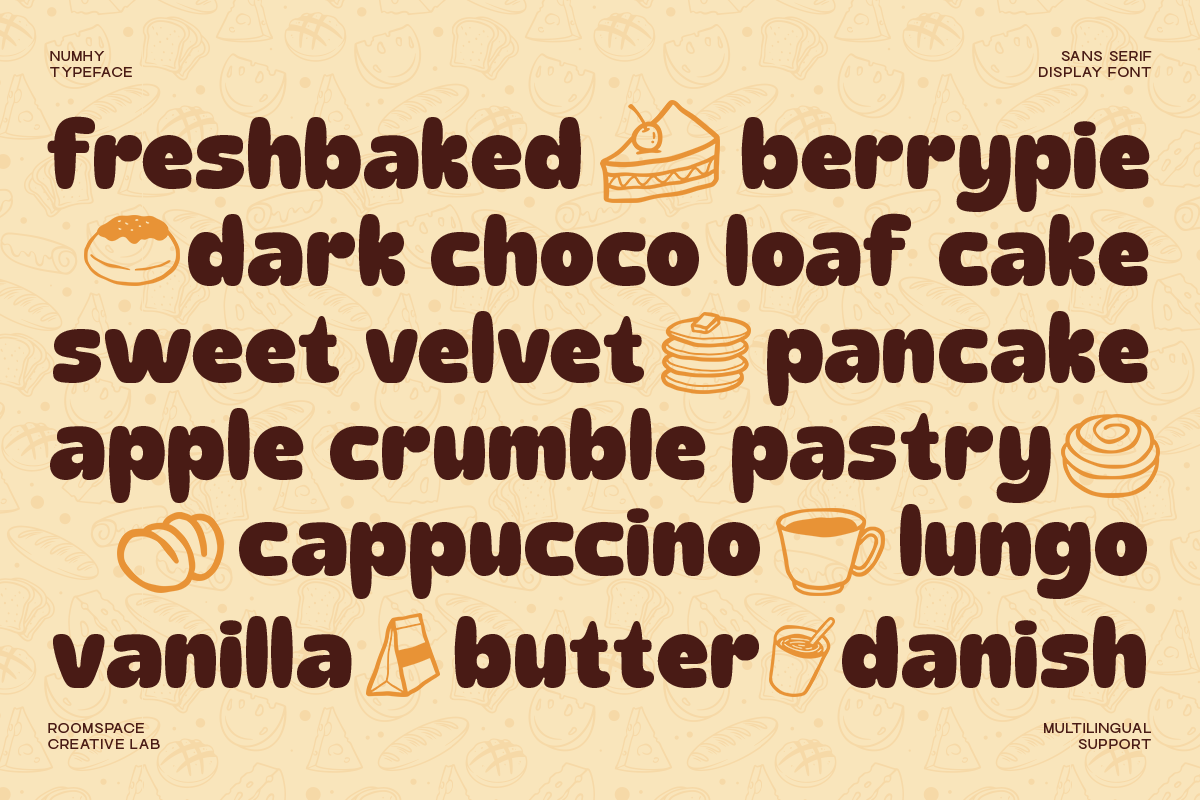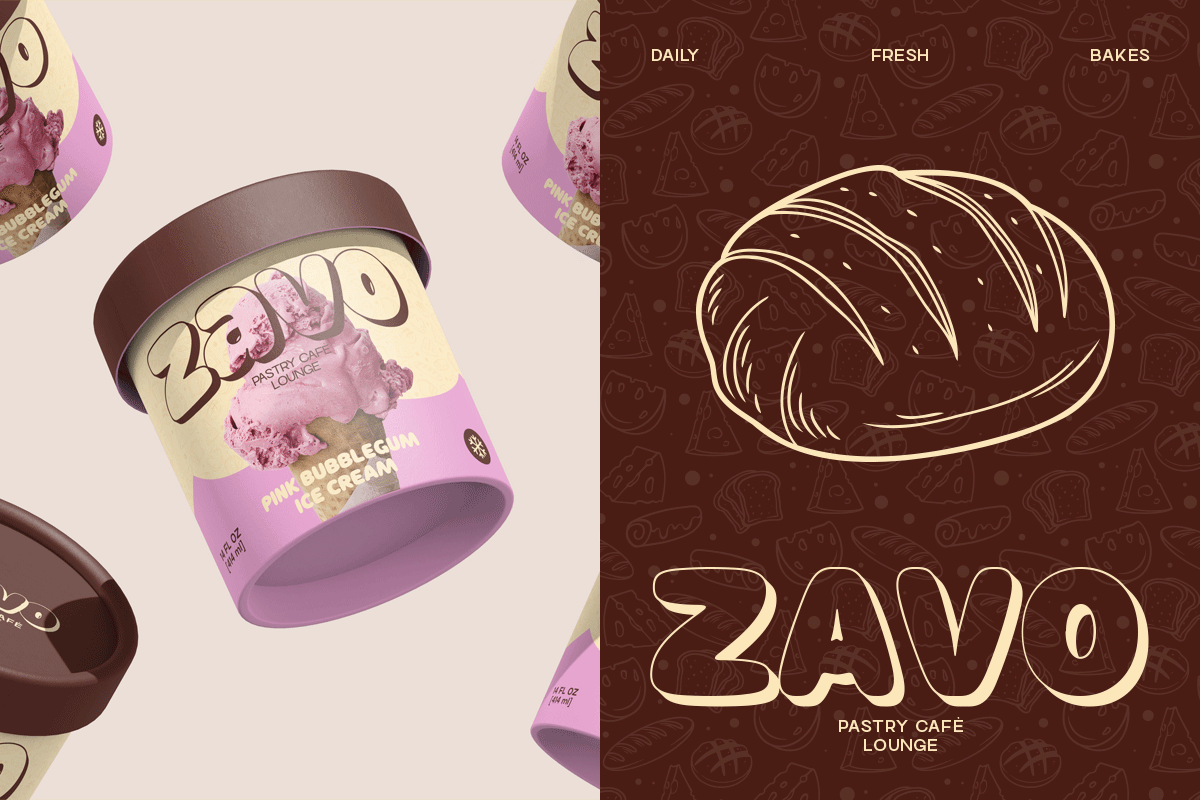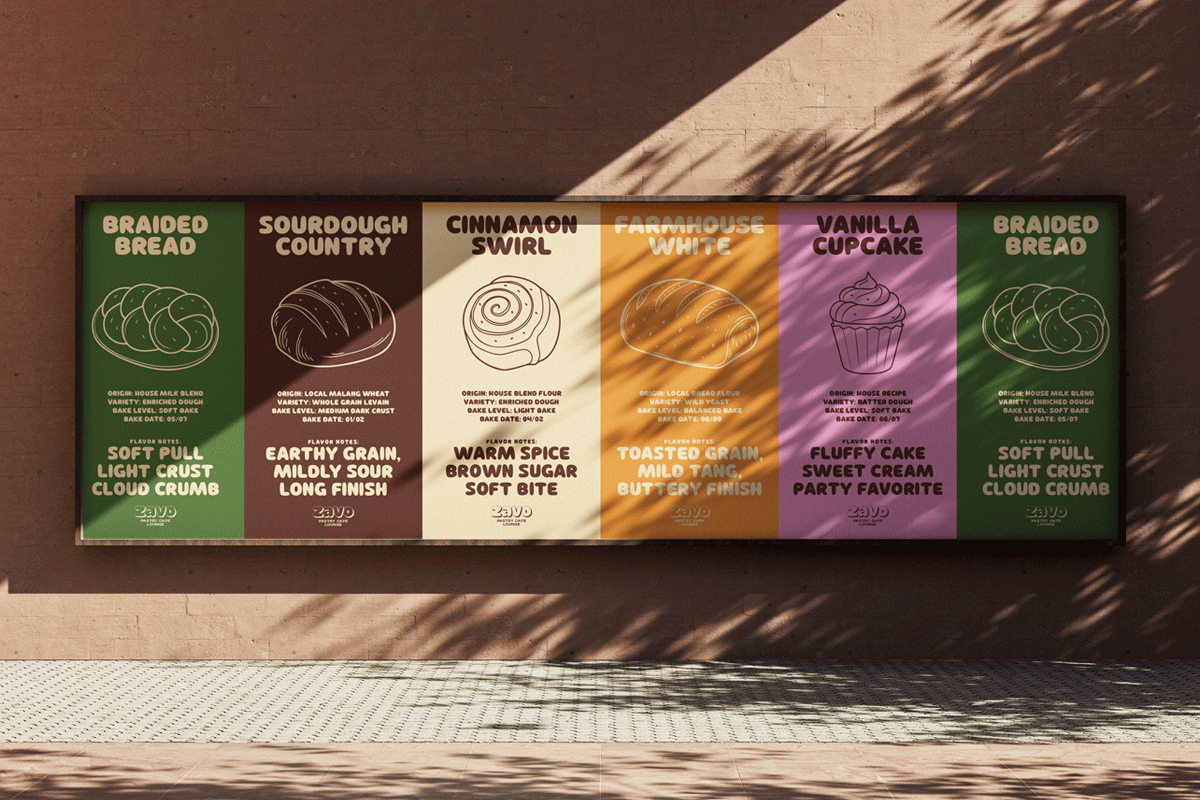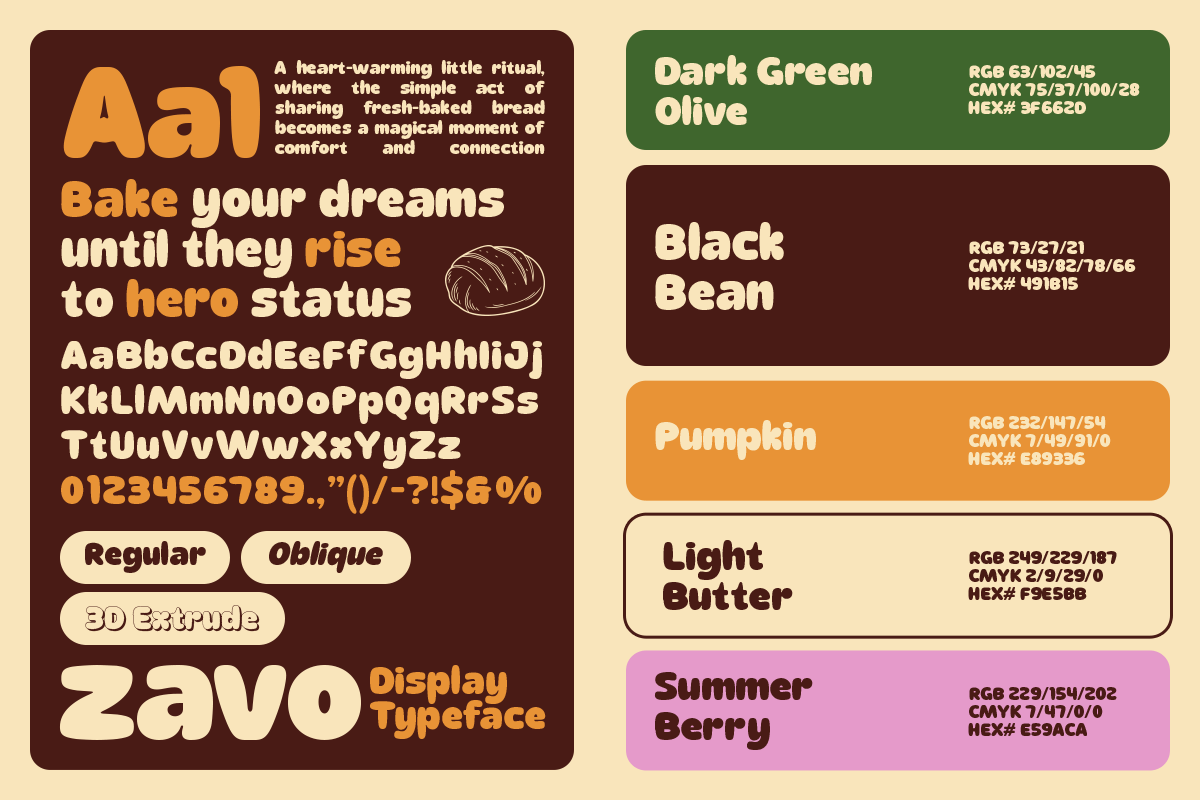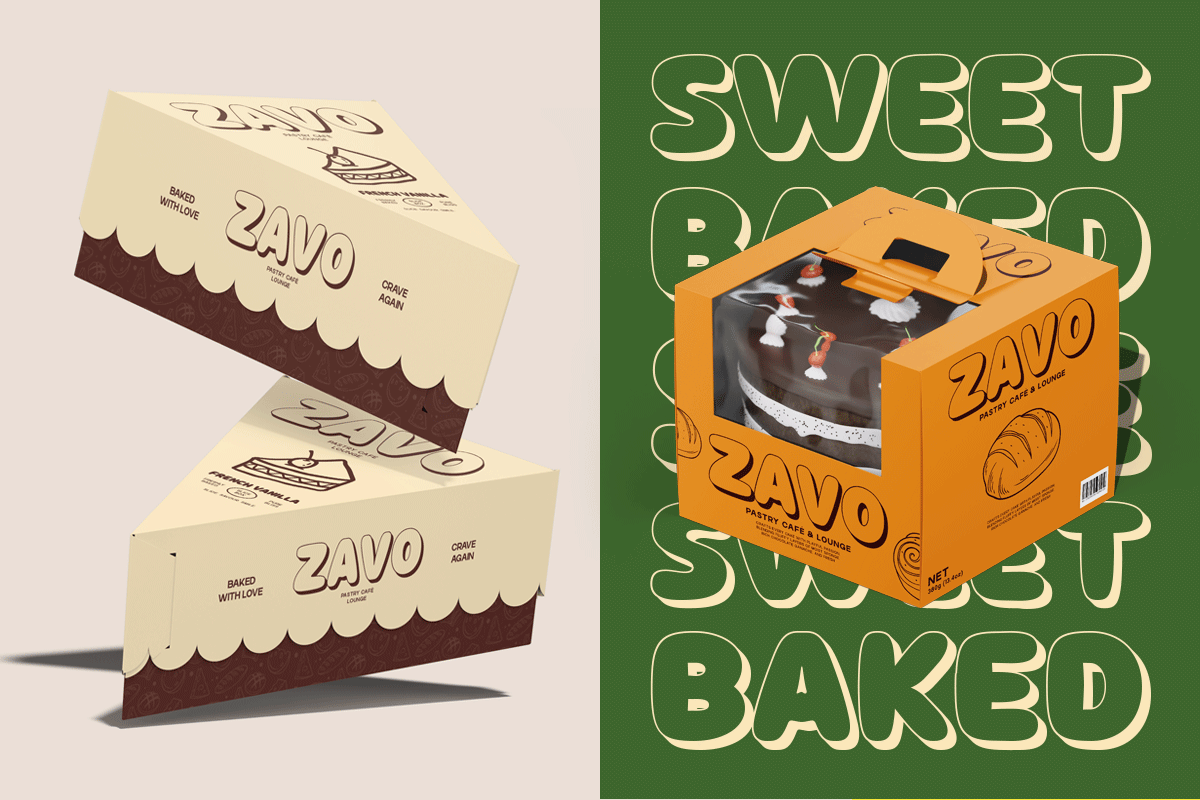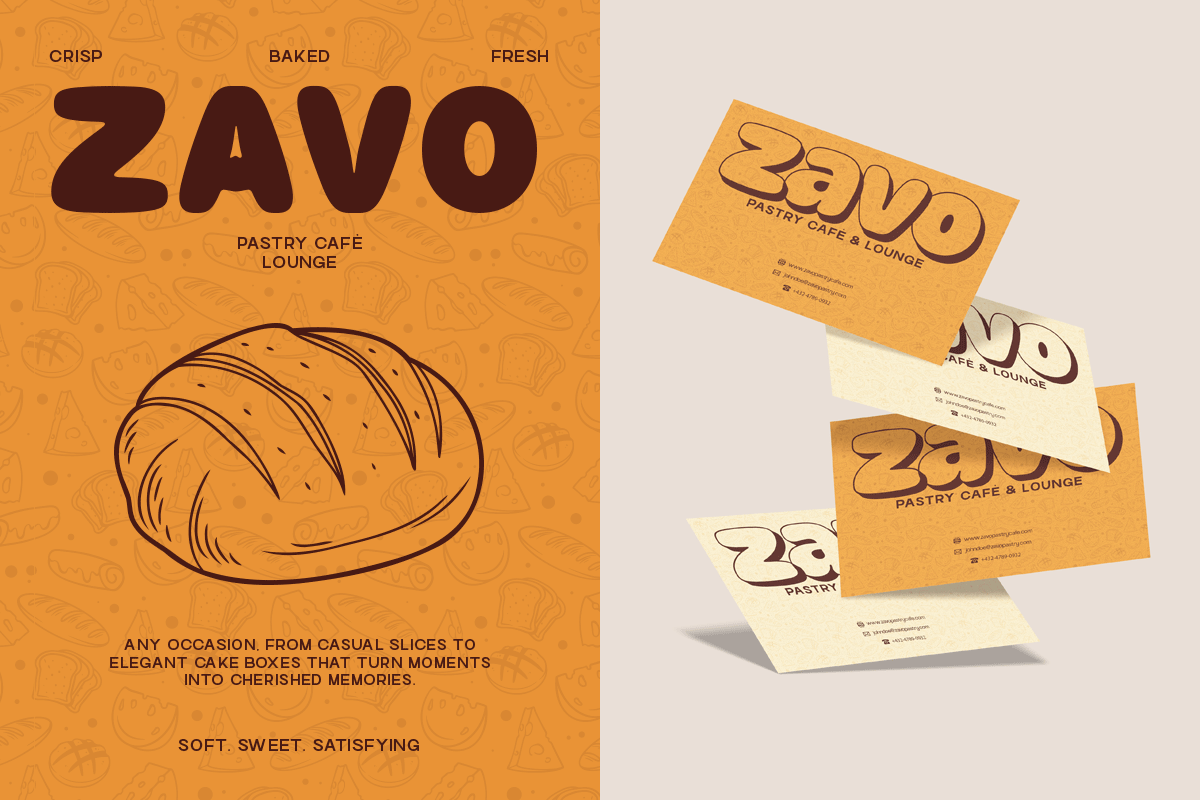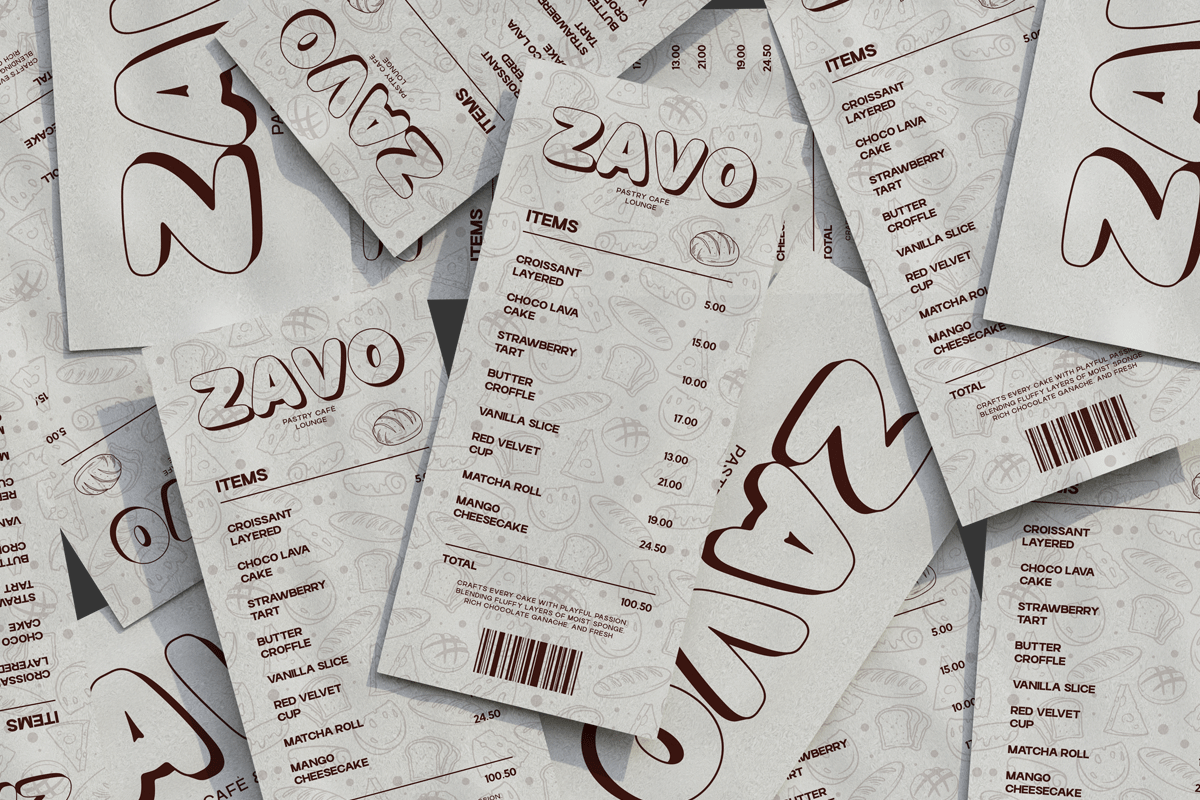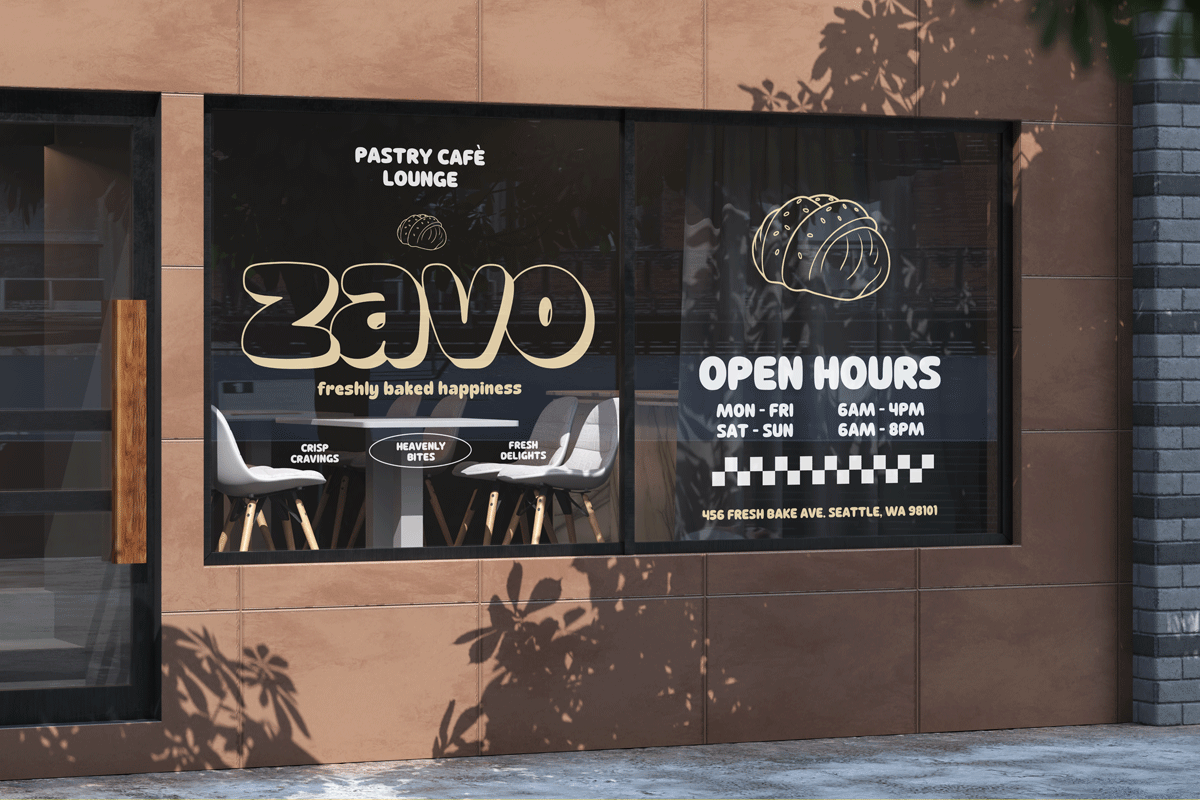
Zavo Sans – A Chunky & Playful Sans
Playful, bold, and friendly a chunky sans-serif font built with soft curves and high visual impact. Zavo is designed to feel warm, fun, and approachable, combining thick strokes with rounded geometry to create a loud yet lovable personality. The tone is cheerful, expressive, and modern, perfect for brands that want to feel welcoming, energetic, and memorable. Zavo brings big letter energy without sharp edges, making it ideal for food brands, cafés, kids products, packaging, and playful digital identities.
Zavo Sans a is hunky sans-serif display font created to feel fun, friendly, and full of energy. With its bold weight and rounded shapes, Zavo is perfect for brands that want to stand out while staying warm and approachable. From café branding to packaging and playful headlines, Zavo adds character without sacrificing readability.
- Chunky sans-serif design
- Strong display readability
Perfect For : Food packaging, café branding, menus, logos, posters, kids brands, social media, and lifestyle visuals.